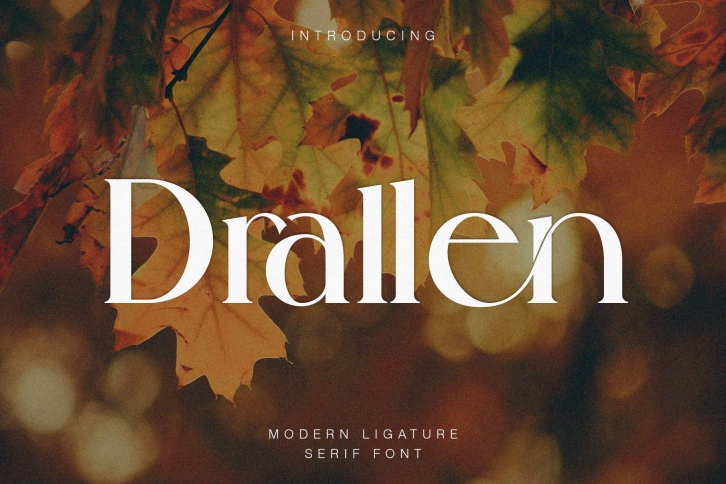
Drallen is an elegant and classy serif typeface. This font is both modern and nostalgic and works great for logos, magazines, and social media. Already matched up and ready to be used for your next design! For those who need a touch of elegance, style, class, and modernity for your designs, this font was created for you!